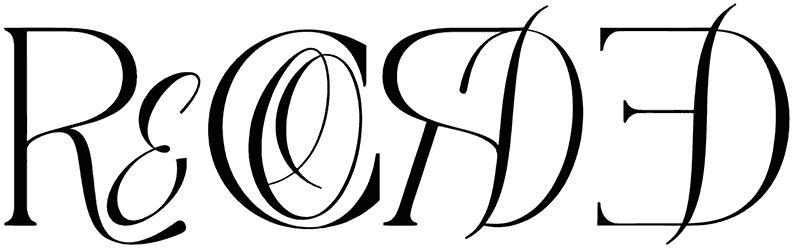
Recorded Font
No matter what font you compare with Recorded font in elegance, it’ll never lose. As if the first set of capitals isn’t fancy enough, this ligature font offers a second series with an even more elaborate style.
So there’s a pretty good chance you don’t even notice that the lowercase and numbers are gone as you’re going to be charmed with its beauty. Add this calligraphy font to your cologne store and gold-making business logos, and you’ll thank us later.